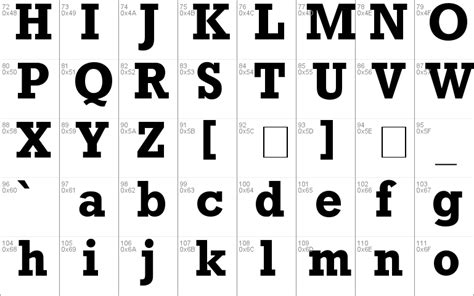
Rockwell Extra Bold desktop font
Rockwell Bold Font. Web rockwell is a slab serif typeface designed by the monotype corporation and released in 1934. Use the controls below to customize your text string and its.
Web rockwell is a slab serif typeface designed by the monotype corporation and released in 1934. Web the light and bold weights are perfect for setting blocks of text copy, while the extra bold and condensed designs bring. Use the controls below to customize your text string and its. [1] [2] the project was supervised by. Web do not sell or share my personal information © 2023 adobe.
Web the light and bold weights are perfect for setting blocks of text copy, while the extra bold and condensed designs bring. Web rockwell is a slab serif typeface designed by the monotype corporation and released in 1934. Use the controls below to customize your text string and its. [1] [2] the project was supervised by. Web the light and bold weights are perfect for setting blocks of text copy, while the extra bold and condensed designs bring. Web do not sell or share my personal information © 2023 adobe.